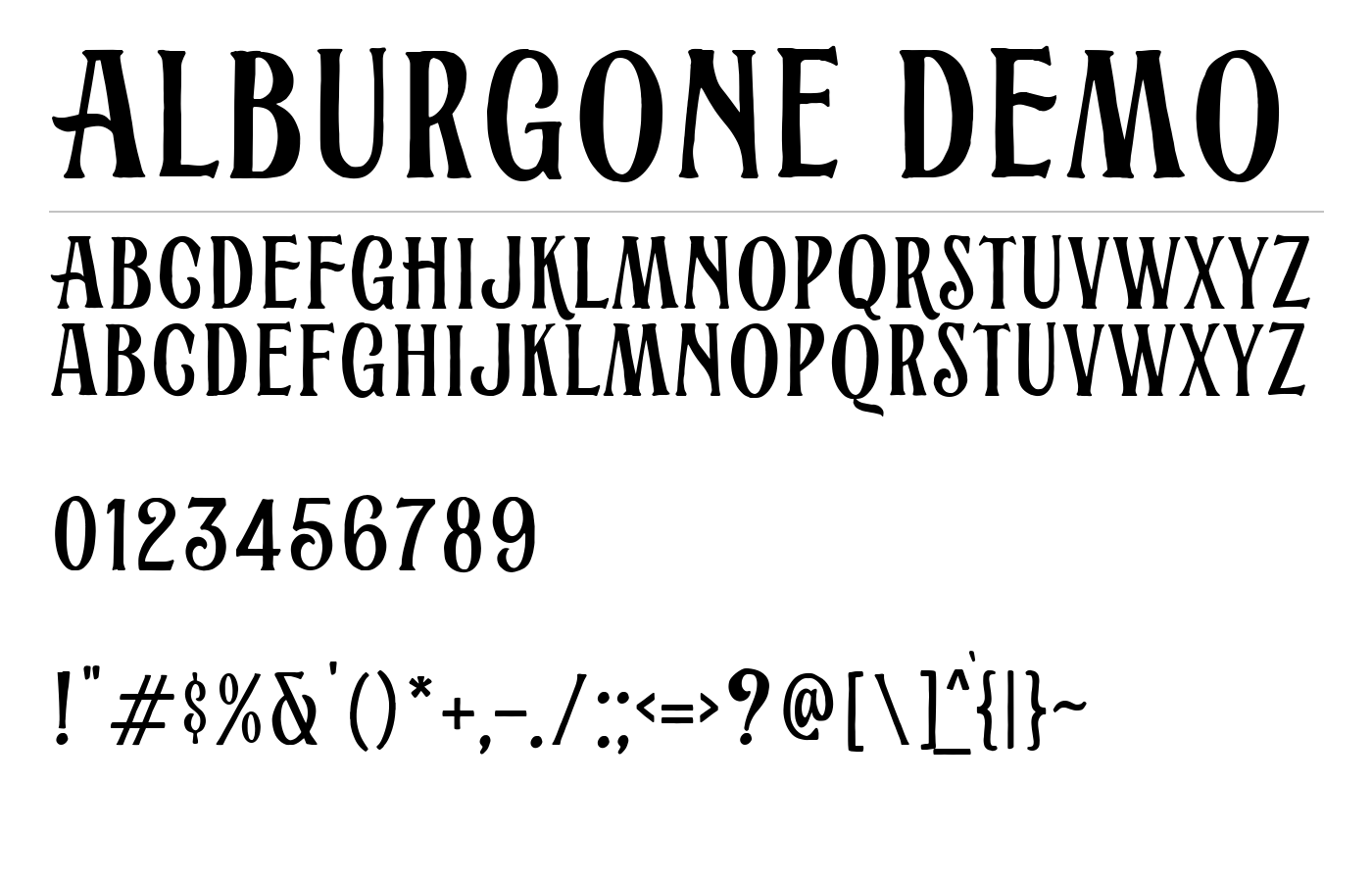
Alburgone DEMO is a distinct serif typeface with a quirky, handcrafted feel, featuring irregular and slightly condensed letterforms with playful curves and subtle stroke contrasts. Its unique, slightly vintage character makes it well-suited for creative branding, posters, and editorial designs where a touch of personality and charm is desired. This font works best in headlines and display text, bringing an artistic and approachable vibe to any project.
Alburgone DEMO Font
About Alburgone DEMO Font